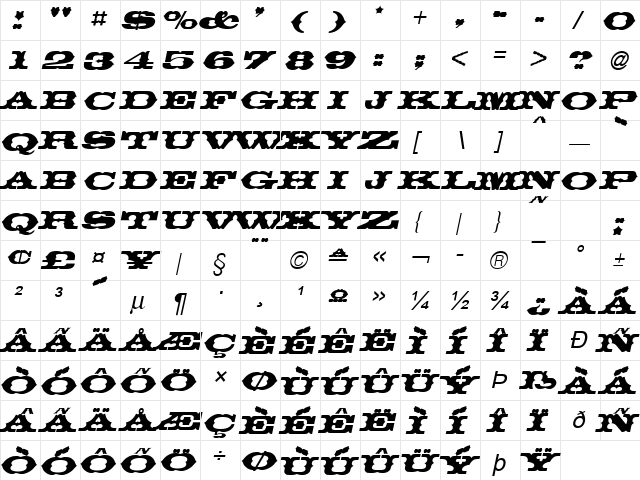
Wyatt Italic
Design Context for Wyatt Typeface
Wyatt is a composed and adaptable typeface that performs quietly and consistently across a wide range of design contexts. Its italic angle brings a sense of urgency and motion to the letterforms.
Pro Tip: Use Wyatt for emphasis, pull quotes, and subheadings where its slanted energy can add rhythm to the layout.